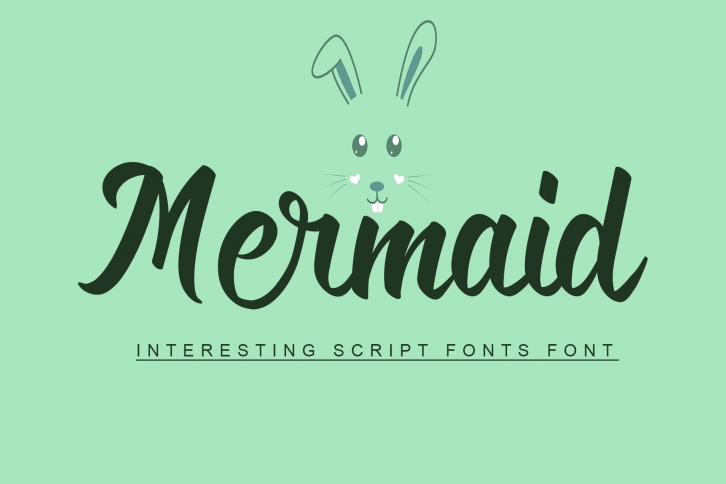
Mermaid is a well-balanced handwritten font, featuring a delicate flow. This versatile script font has a wide spectrum of applications ranging from greeting cards to headlines and is guaranteed to add a romantic feel to your next project.